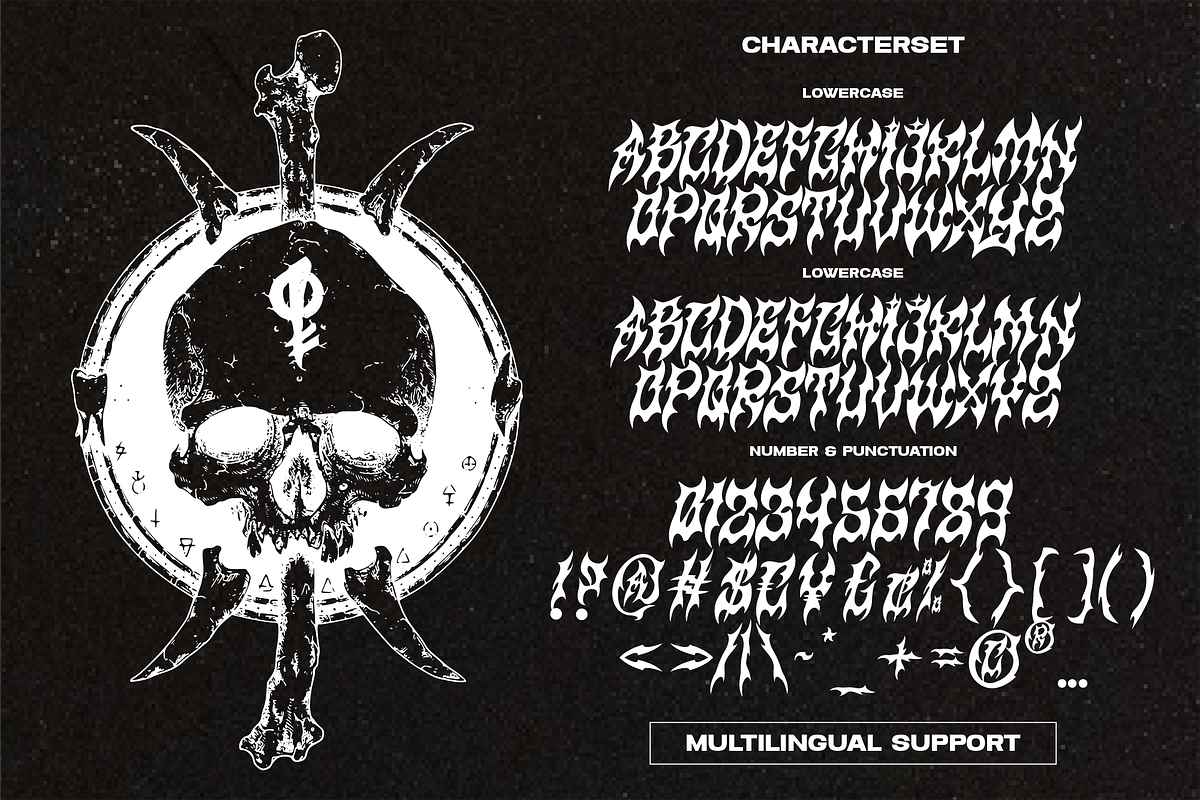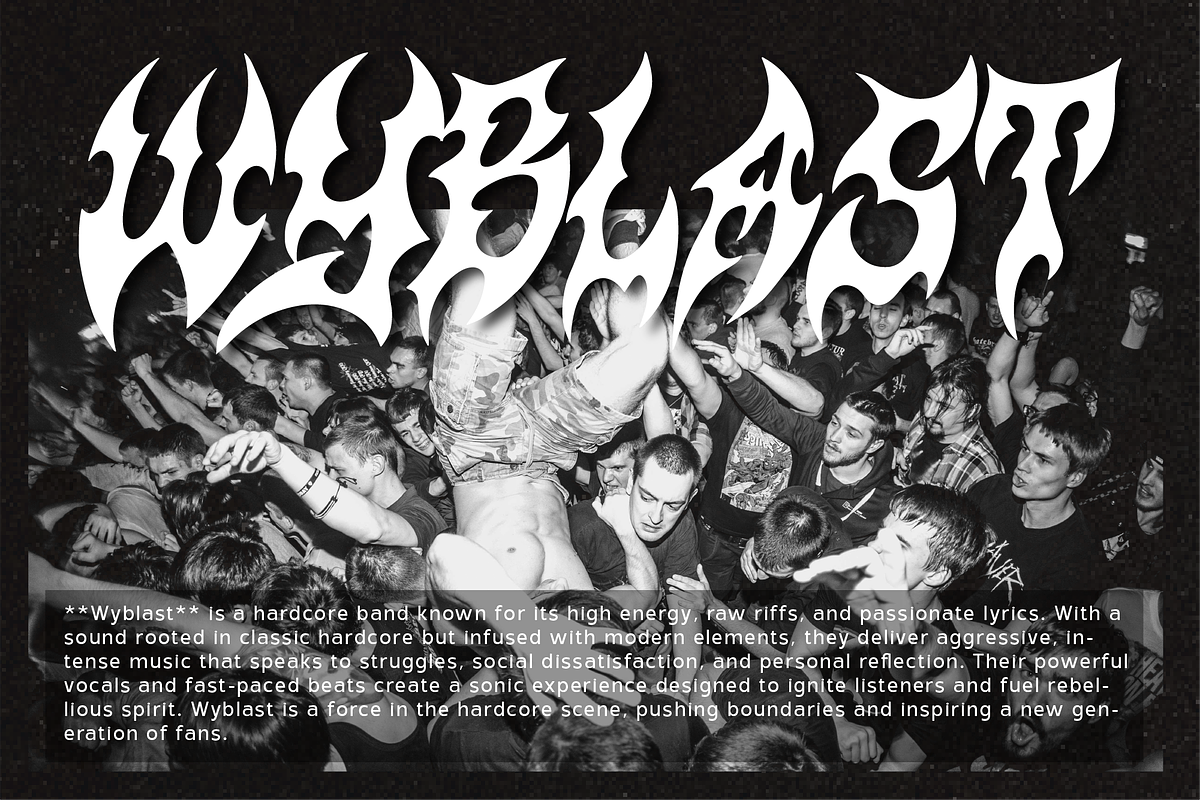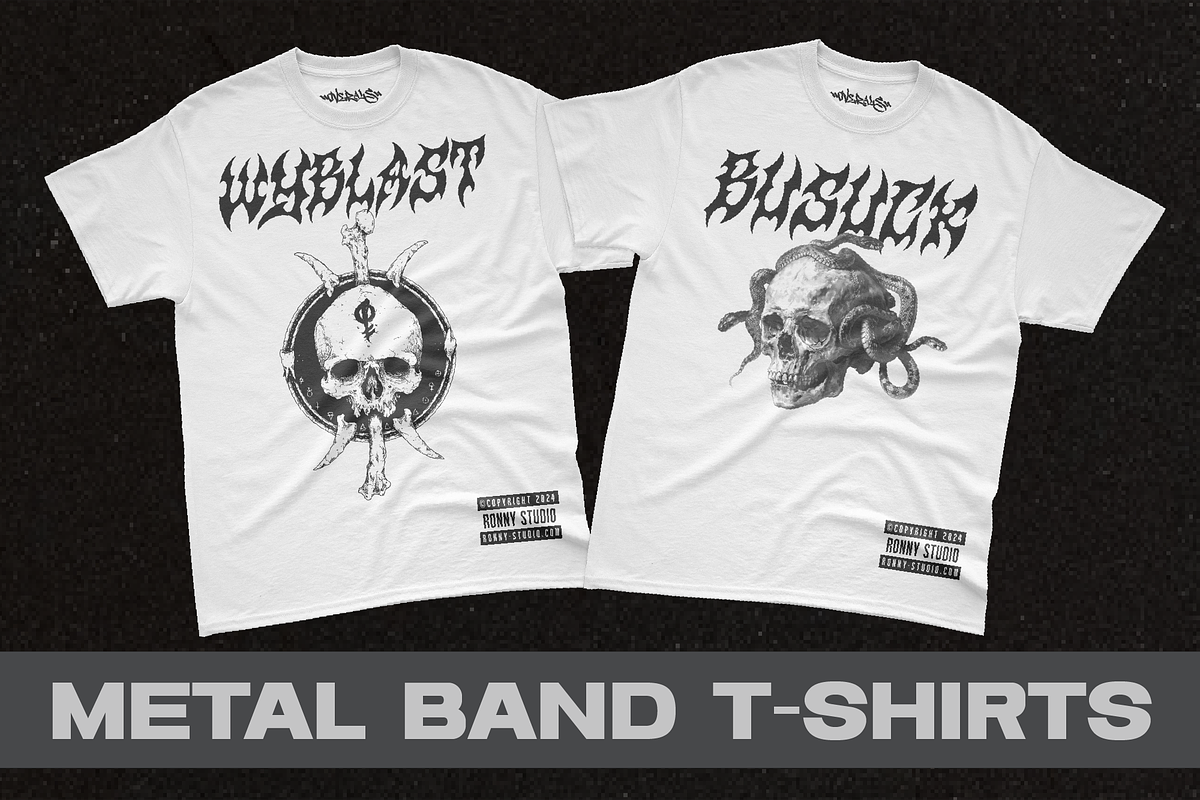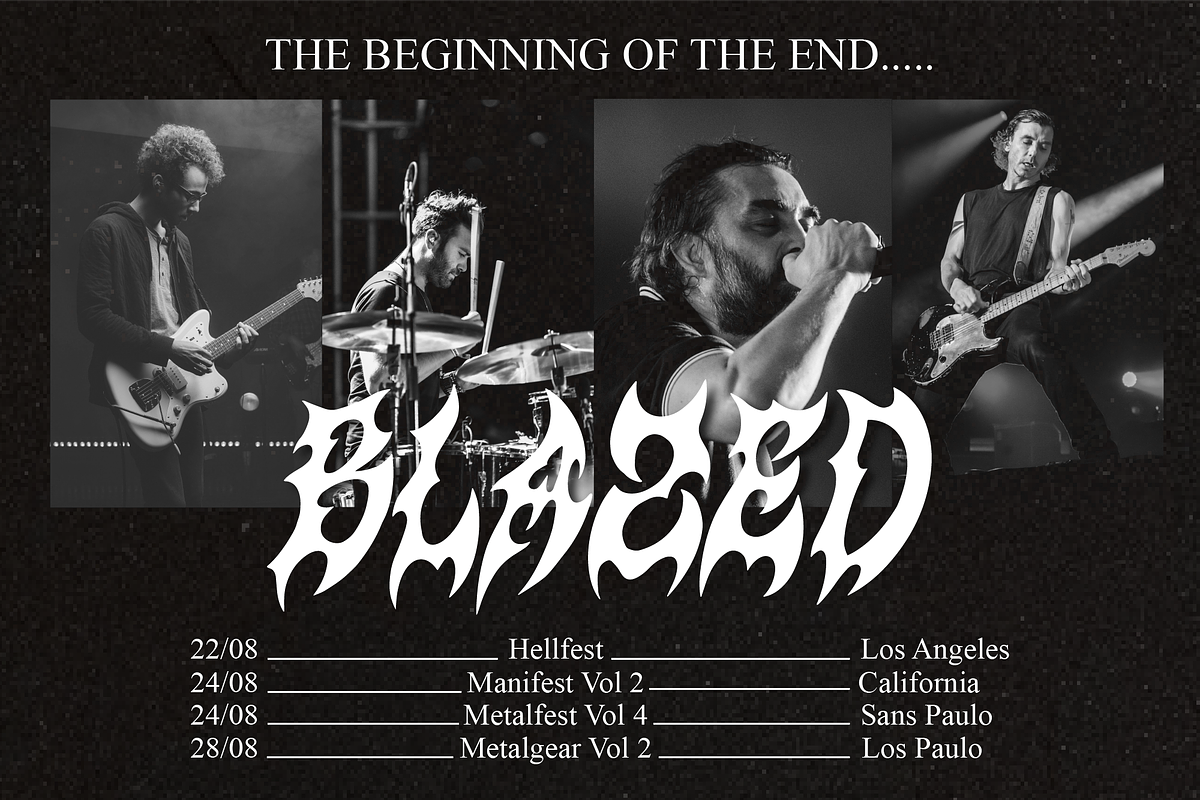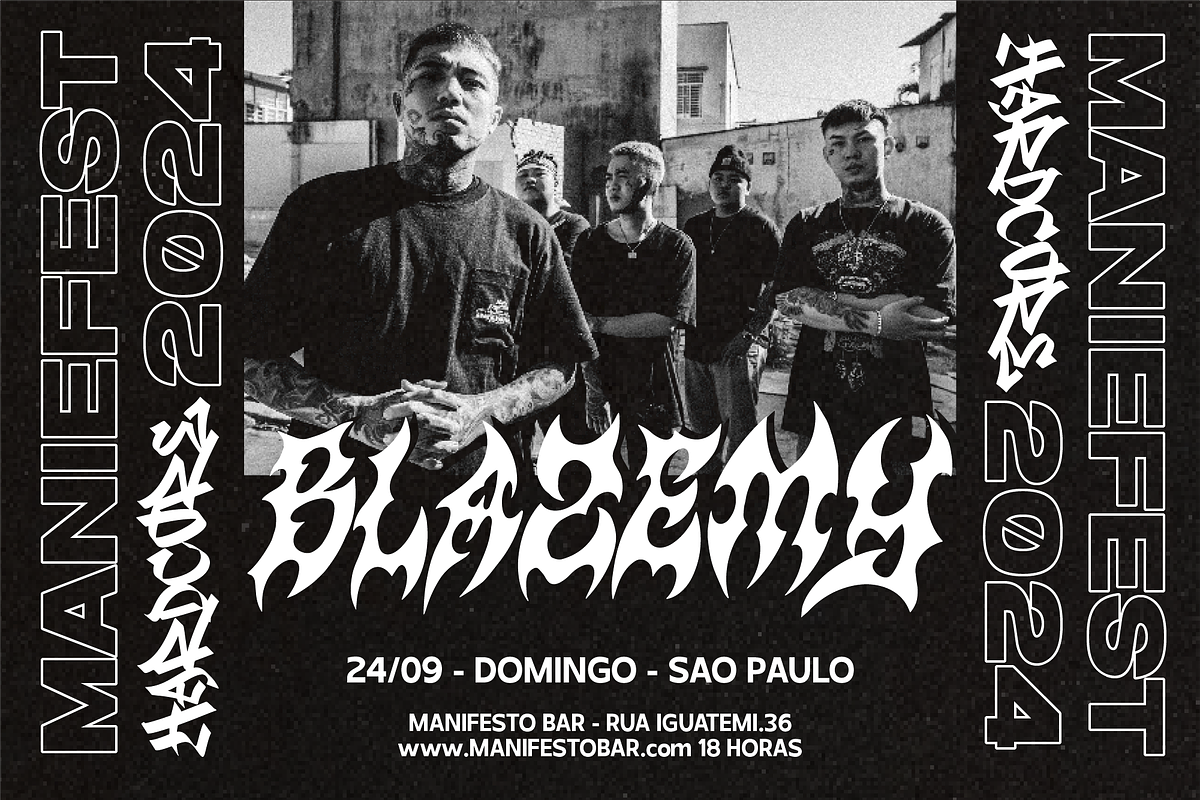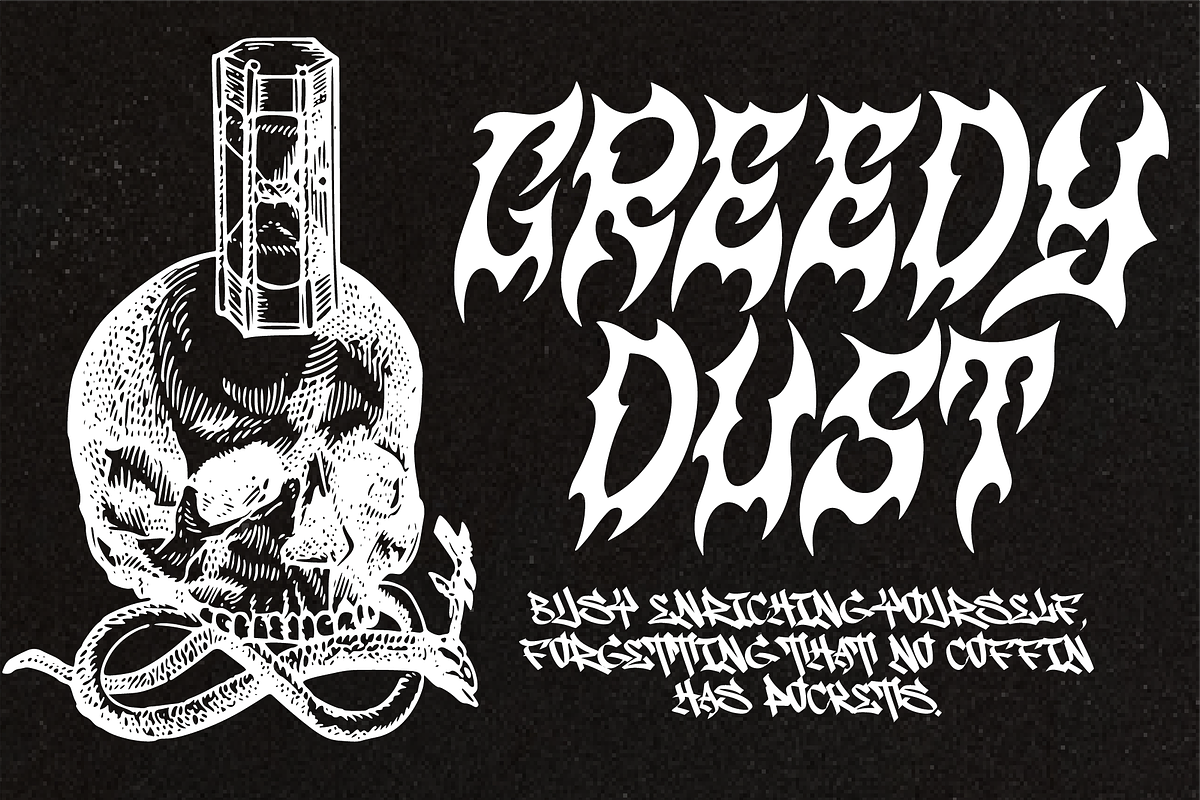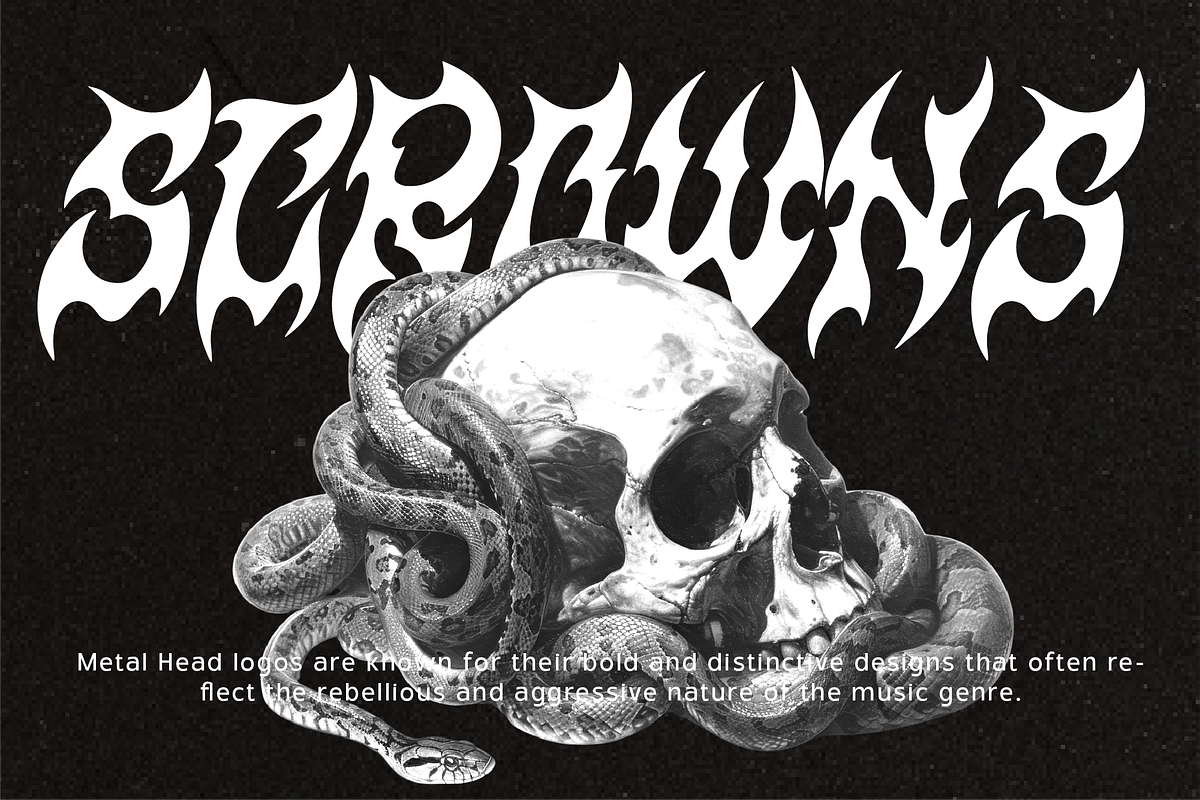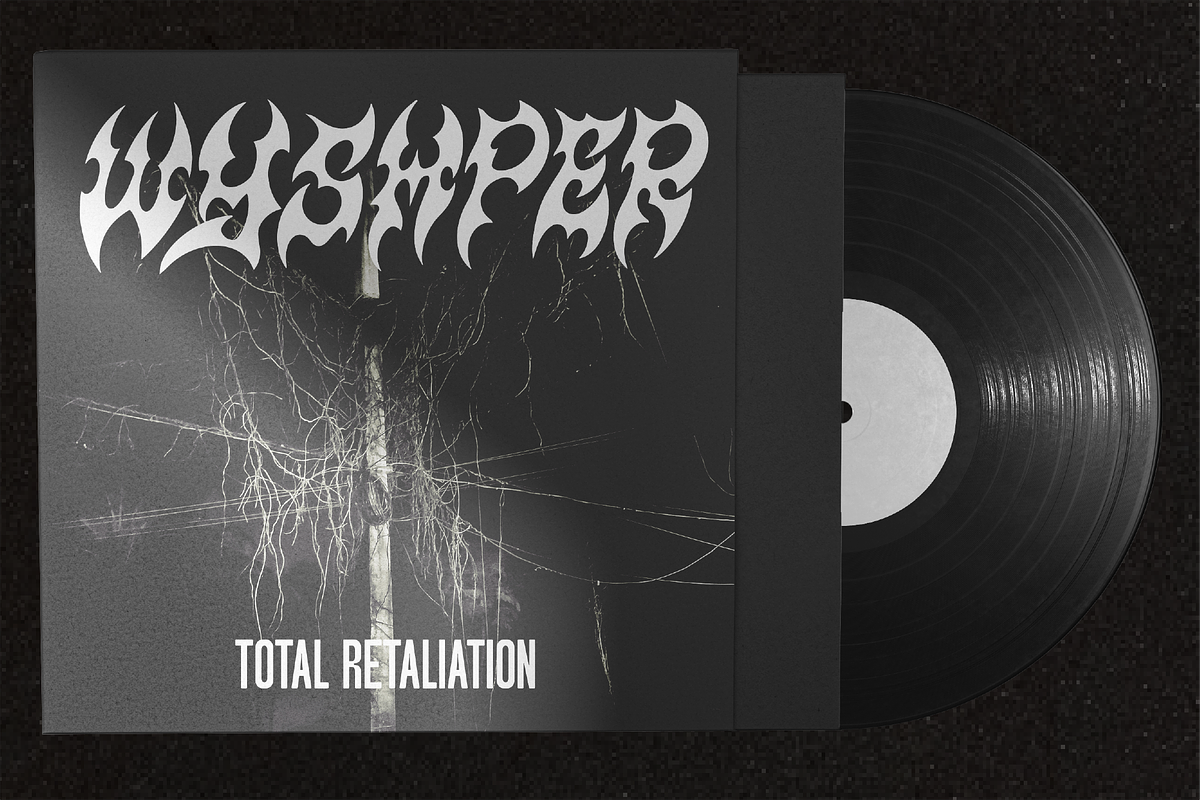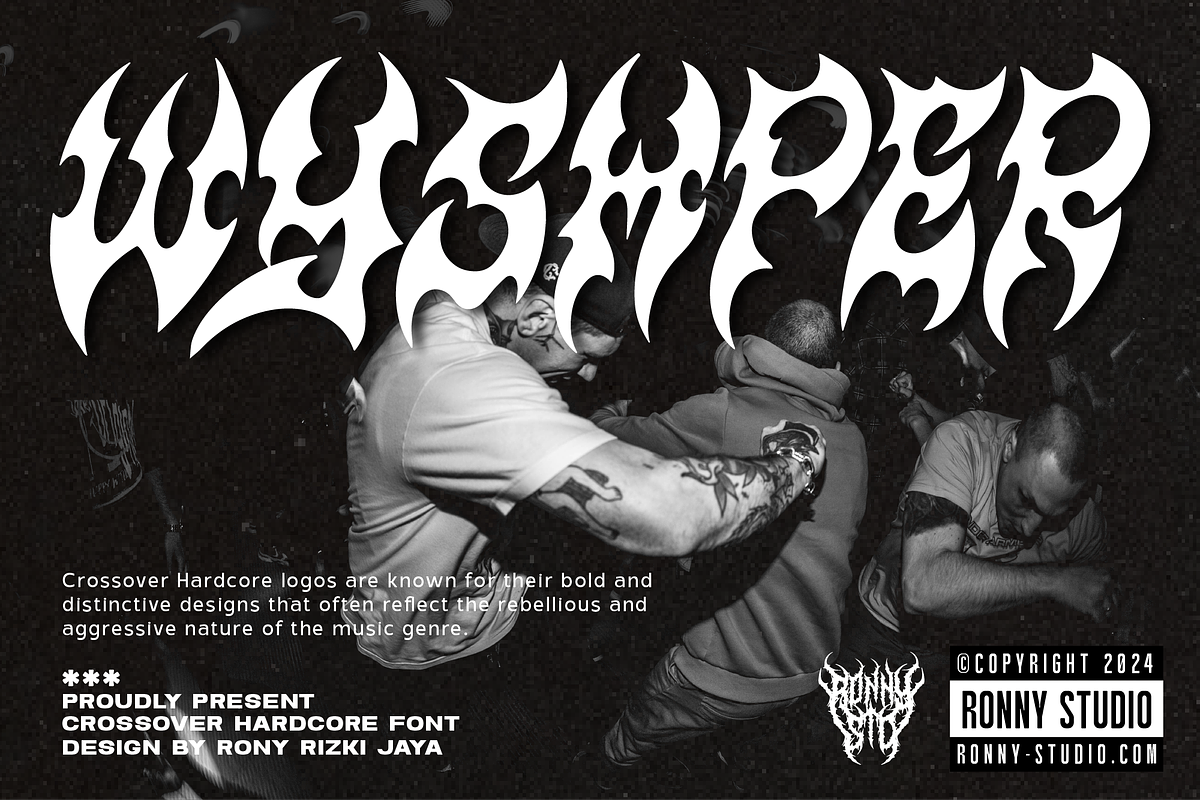
Wyshper Bold Crossover Hardcore Font
🔥 Wyshper is a bold crossover hardcore font designed for projects that demand a fierce, rebellious, and street-inspired vibe. Perfect for metal band logos, punk flyers, hardcore merchandise, extreme sports apparel, and tattoo designs, Wyshper delivers a high-impact look with sharp, aggressive lines and unique letterforms.
🎨 Key Features:
- Bold & Aggressive Style – Perfect for music, extreme sports, and streetwear themes.
- Versatile Character Set – Includes uppercase, lowercase, numbers, punctuation, stylistic alternates, and multilingual support.
🎯 Why Choose Wyshper?
- Perfect for merchandise, branding, apparel, and event posters in the music and alternative scenes.
- Adds an edgy and dynamic feel to any design.
💡 Great For:
- Band logos, album covers, punk zines, streetwear branding.
- Skater and extreme sports designs.
- Tattoo-inspired artwork and edgy fashion graphics.